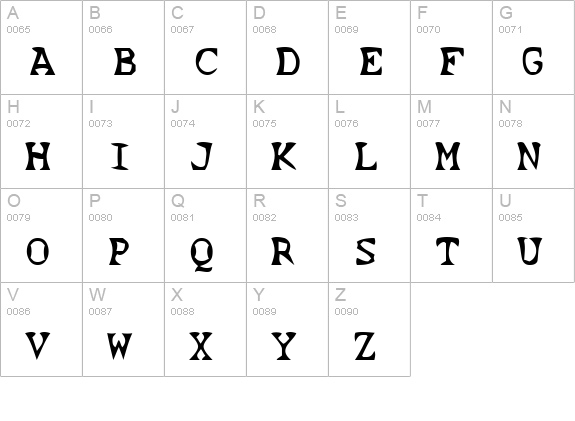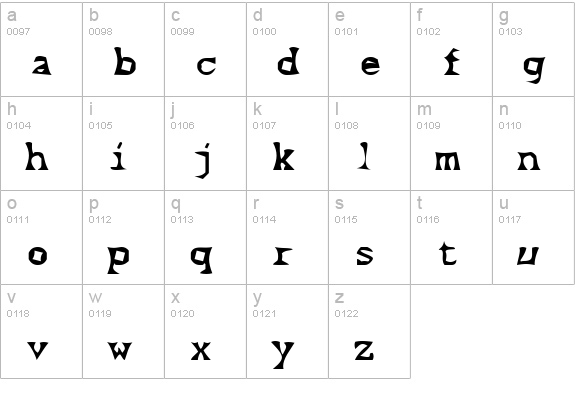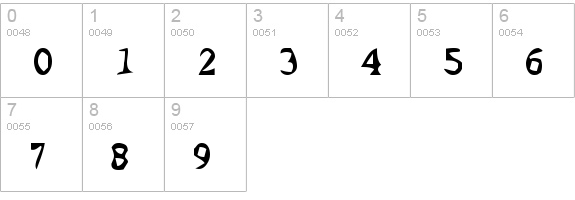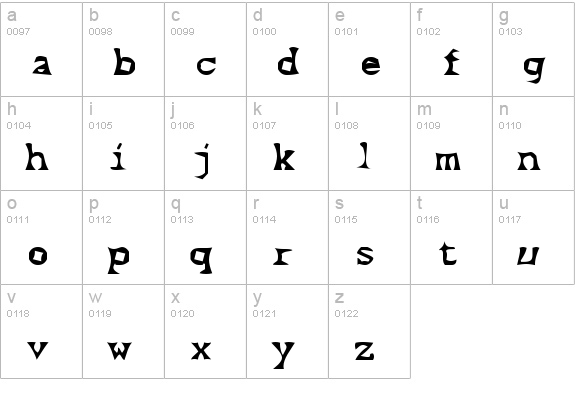
Scissor Cuts 2 Font Details
Scissor Cuts 2 font is a captivating and creative typeface that adds a touch of whimsy to any project. With its unique and hand-drawn design, this font is perfect for adding a playful and artistic element to your designs. The Scissor Cuts 2 font features bold and expressive letterforms that have been meticulously crafted to resemble the cut-out shapes created by a pair of scissors. Each character has a beautifully uneven and jagged edge, giving it an authentic and organic appearance. This font is versatile and can be used for a wide range of design projects including logos, branding, packaging, posters, and more. It effortlessly adds a touch of personality and visual interest to any design it is applied to. One of the best things about Scissor Cuts 2 font is that it is freely available to download at FontsMarket.com. This means that you can easily access and use this font in your projects, without having to worry about any licensing restrictions. Whether you are a professional designer or a hobbyist, this font is a valuable addition to your font library. So, if you are looking for a unique and eye-catching font that will make your designs stand out, look no further than Scissor Cuts 2 font. Download it for free at FontsMarket.com and let your creativity soar.